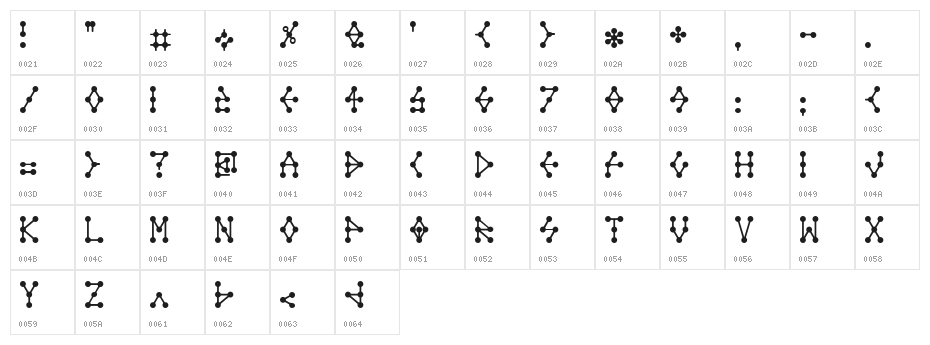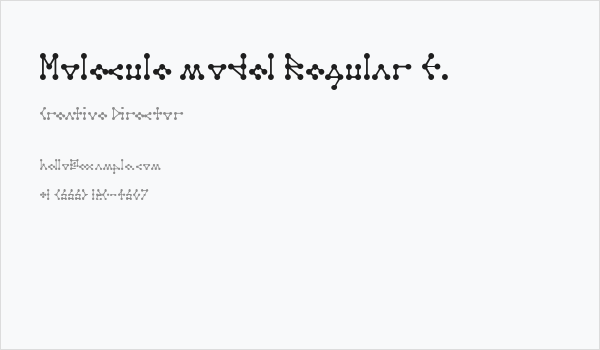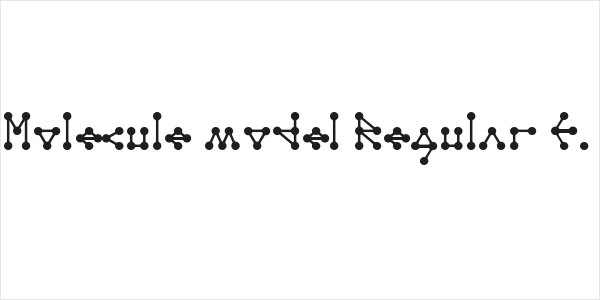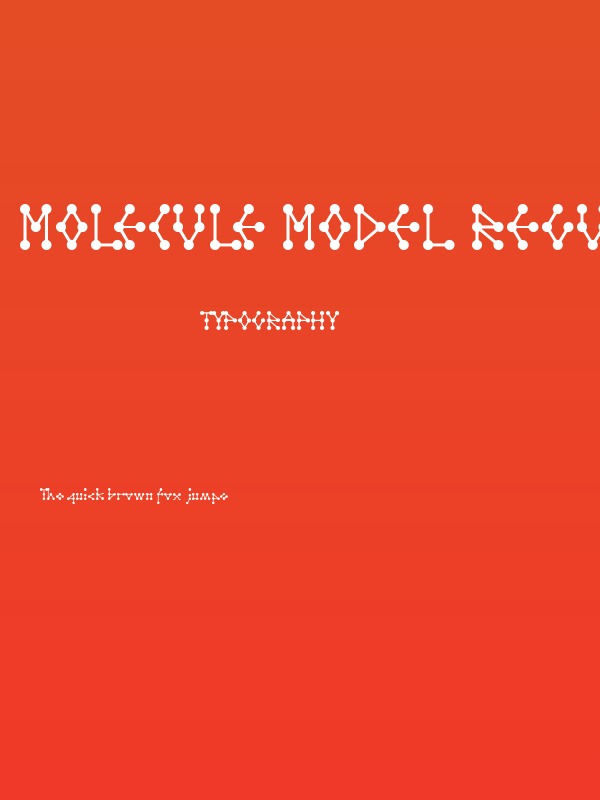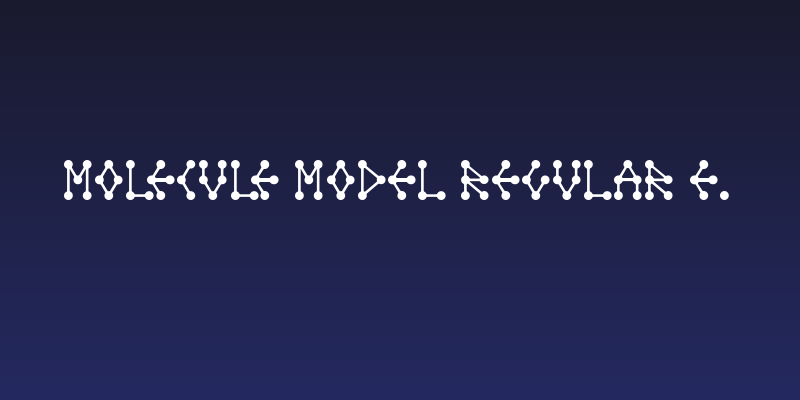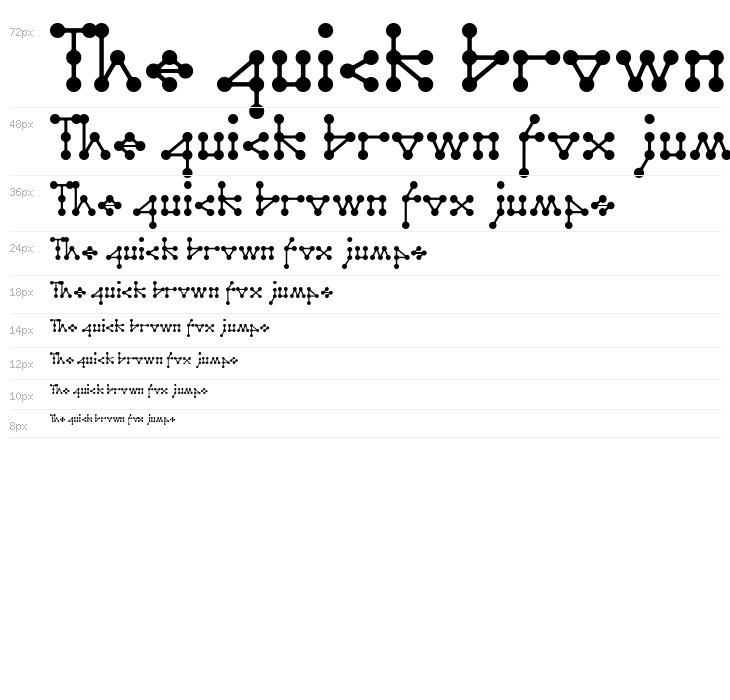
Molecule model Regular E. Font
Molecule model Regular E. Description
This font features a unique design inspired by molecular structures, with each character resembling a series of interconnected atoms and bonds. The letters and numbers are composed of circular nodes connected by lines, creating a scientific and futuristic aesthetic. The style is highly decorative, making it stand out with its intricate and playful appearance. The characters maintain a consistent size and shape, ensuring readability while offering a distinct visual appeal. This font is perfect for projects that require a modern and innovative look, especially those related to science, technology, or education.
| Overall Style | Futuristic, Scientific |
| Proposed Projects | Ideal for science-themed posters, educational materials, tech branding, and futuristic designs. |